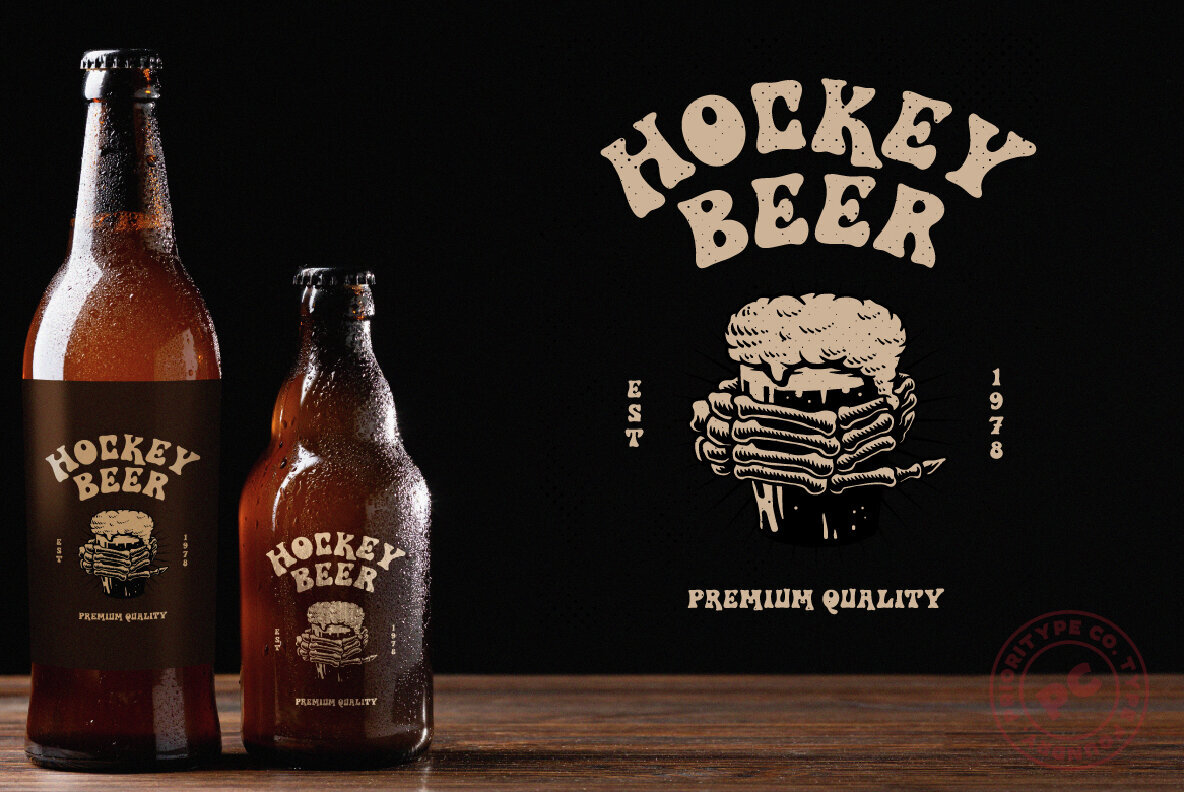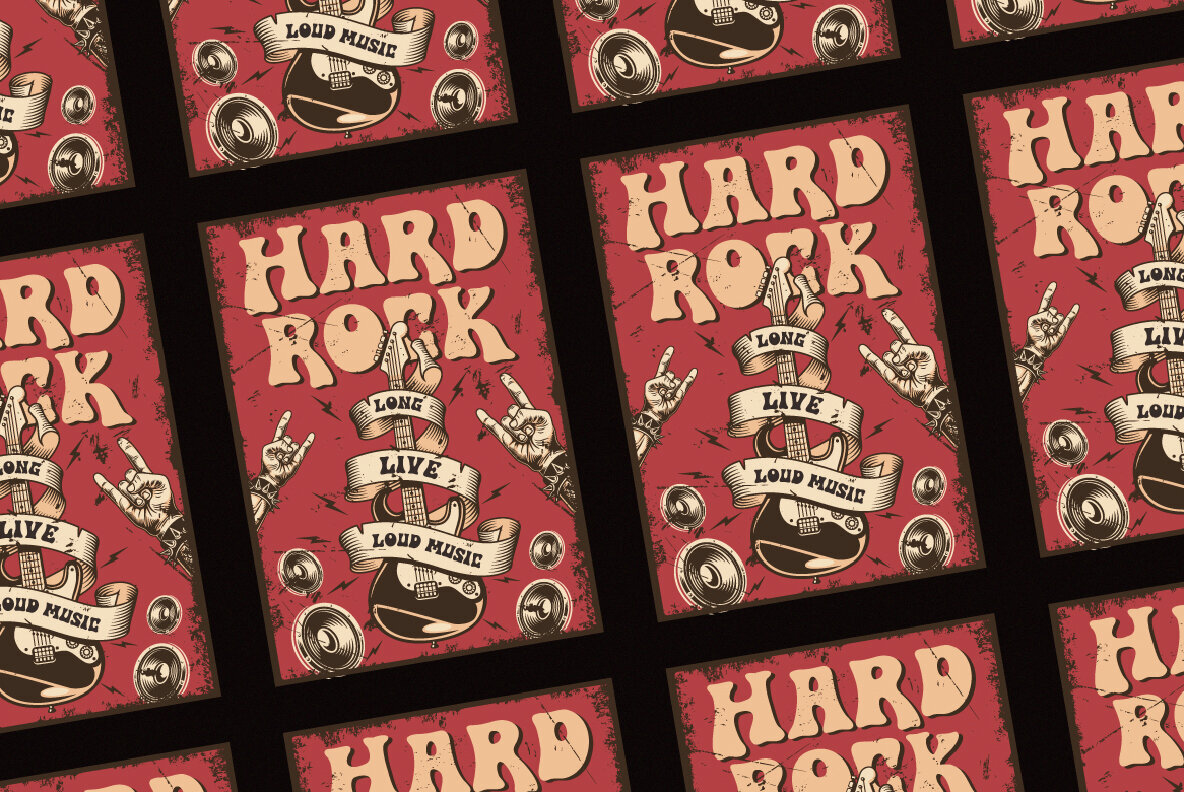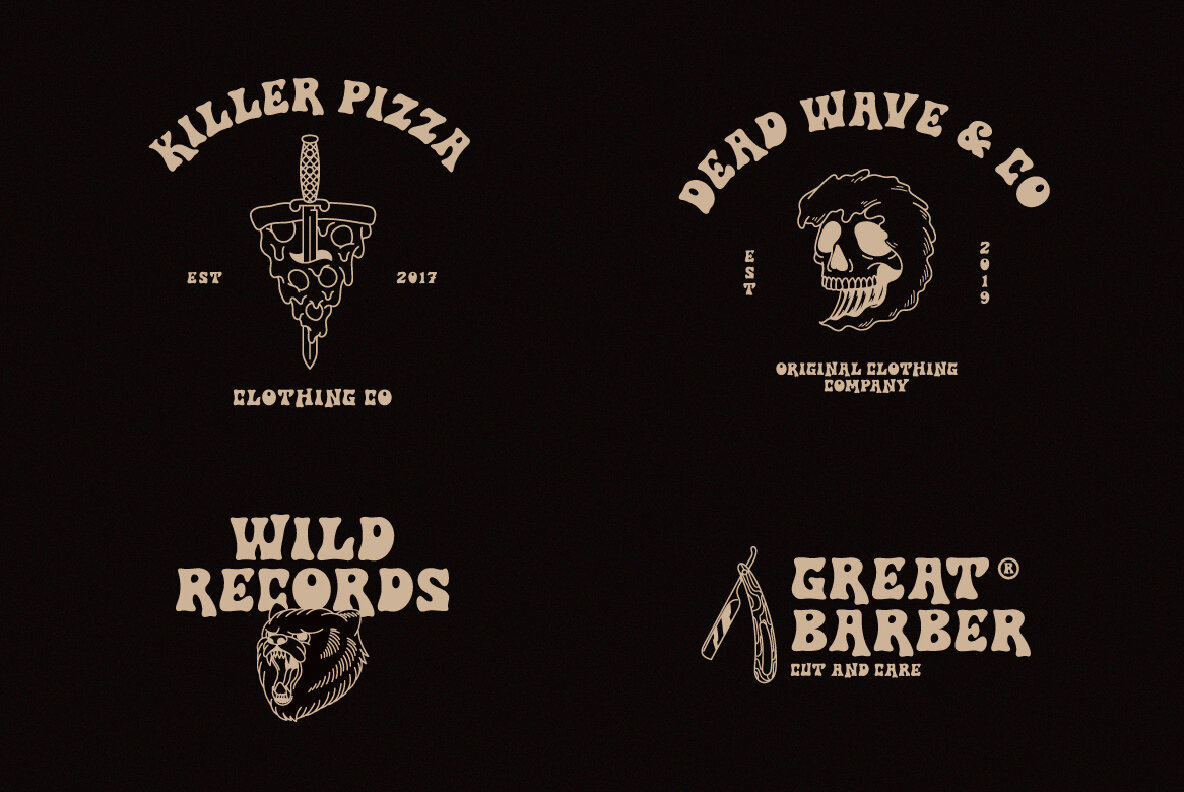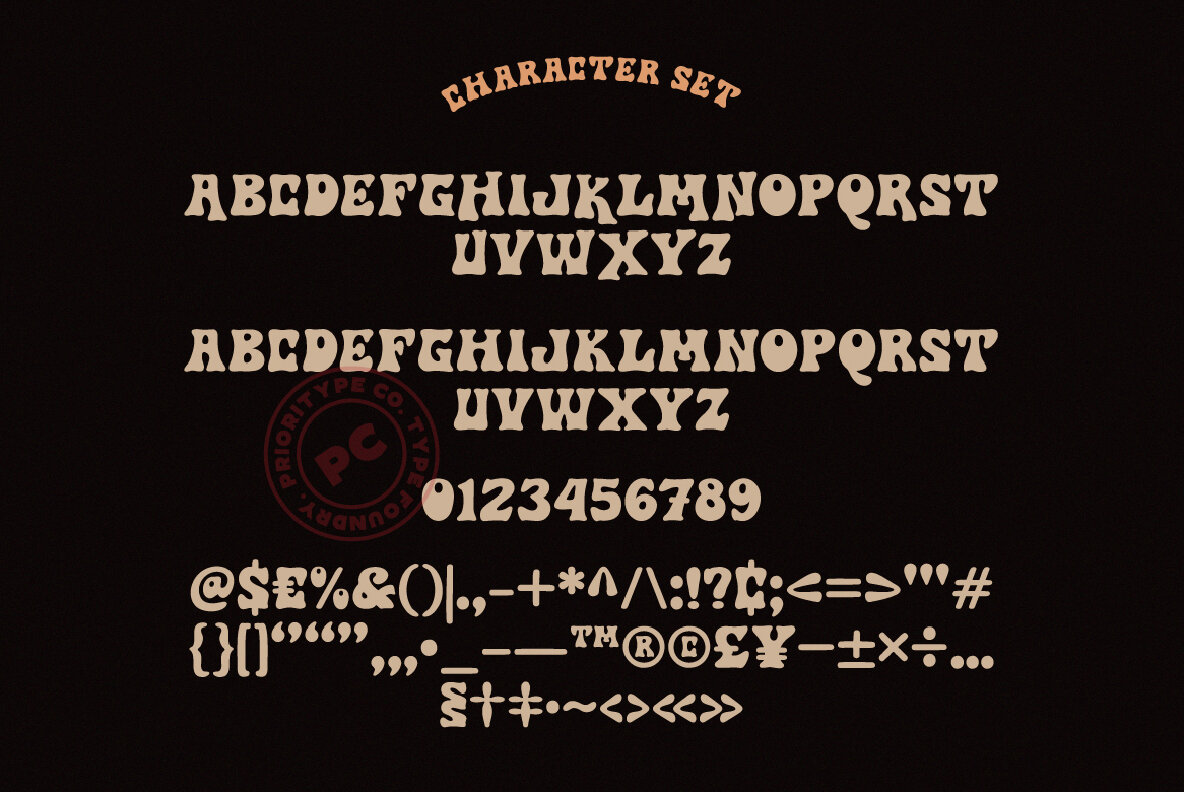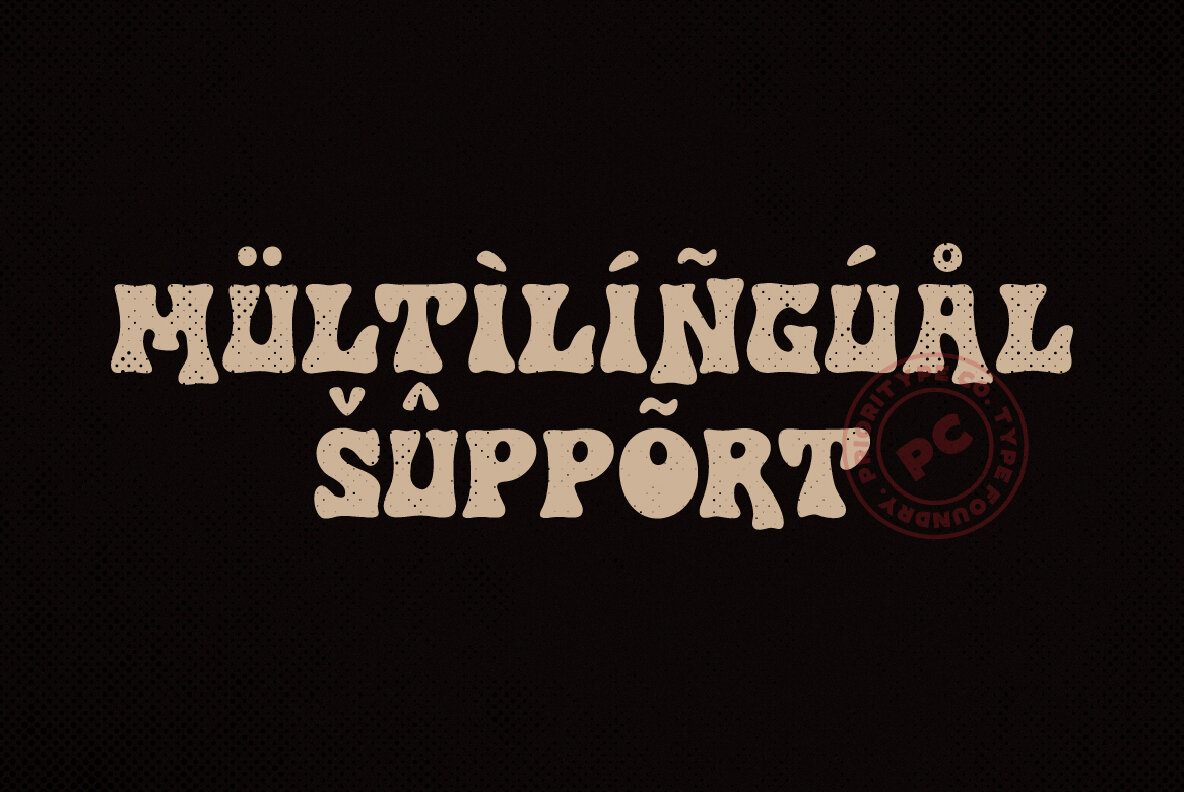
Right Song Font
Right Song Regular
This bold, decorative font features a playful and bubbly design reminiscent of the groovy psychedelic styles of the 1970s. Its vintage and retro flair make it perfect for eye-catching headlines, creative display purposes, posters, and any project seeking a unique and nostalgic vibe.